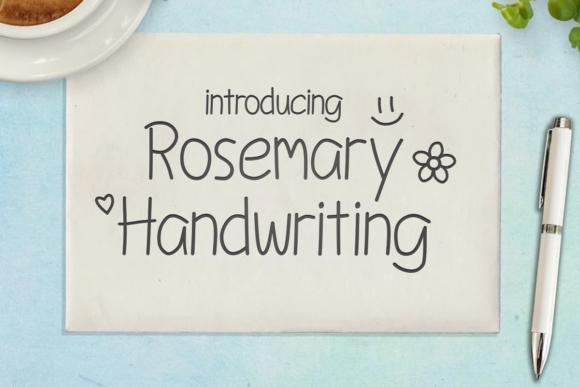
Introducing Rosemary Handwriting Font - A Touch of Elegance and Creativity for Every Occasion!
Embark on a captivating journey of artistic expression with Rosemary Handwriting Font, a script font family that exudes charm and personality. Designed by the talented Deedeetype, this font is perfect for those seeking a high school font that resonates with youthful energy and heartfelt emotions.
With its playful and casual style, Rosemary Handwriting Font adds a touch of whimsy to your creative projects. It's a font that dances across the page, capturing the essence of handwritten notes and personal touches. Whether you're creating heartfelt invitations, designing heartwarming social media posts, or simply adding a personal touch to your digital creations, Rosemary Handwriting Font is the perfect choice.
The beauty of Rosemary Handwriting Font lies in its versatility. It seamlessly adapts to various design aesthetics, from rustic and vintage to modern and minimalist. Its flowing curves and delicate strokes bring warmth and charm to any project, making it a favorite among creatives seeking a font that speaks to the heart.